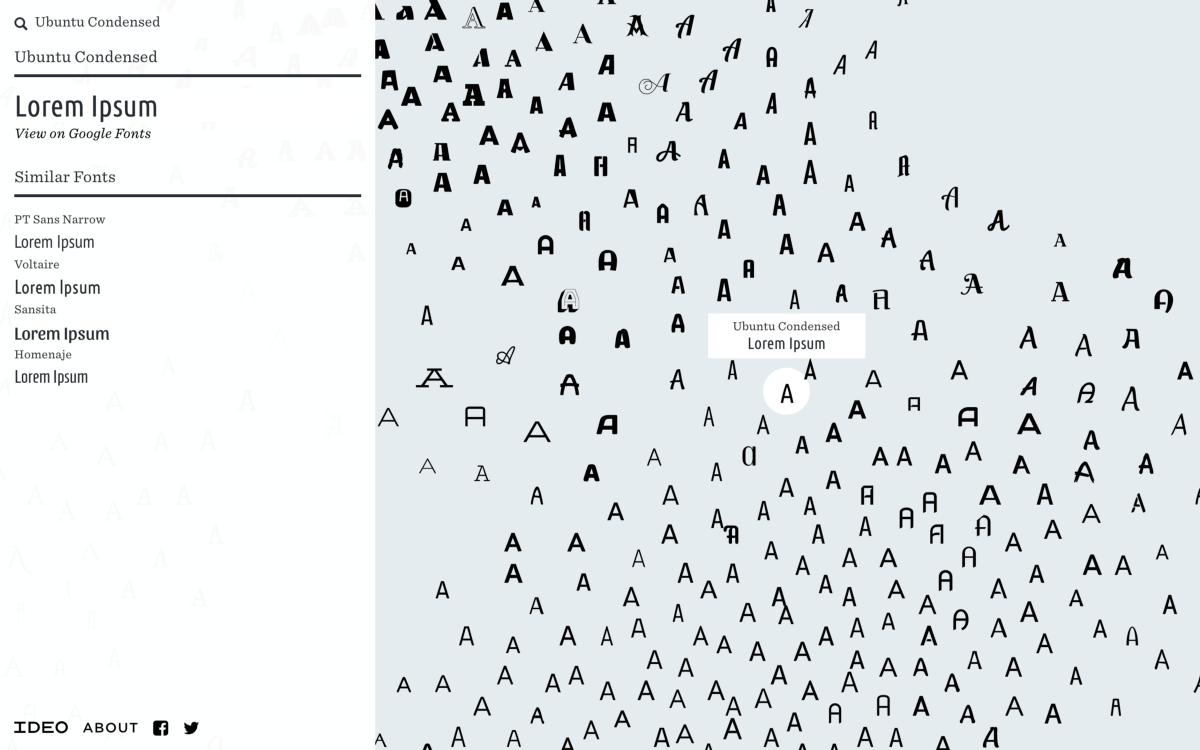
Genius map tool sorts fonts by how they look
Visually similar fonts are grouped together in this interactive map tool.
Sorting fonts by name has long been the conventional way for designers to sift through different sets of type families. This doesn't mean it's the easiest approach though. To make the process of exploring fonts more visually intuitive, software designer and IDEO project lead Kevin Ho has harnessed the power of machine learning with his Font Map.
Powered by a machine learning algorithm that sorts fonts by visual characteristics such as weight and serif, Font Map gives designers a new and interactive way to explore type.
Click on a font and you can see similar styles dotted all around it, complete with their names and an example of the type family in action. It's a slightly addictive, game-like way of choosing fonts that's sure to turn up some surprising results.
Over on his blog post, Ho explains that he created Font Map to help designers discover alternative fonts with the same aesthetic. With over 750 fonts laid out for designers to click on and explore, this map of clustered sets of type is a welcome change to scrolling through alphabetically ordered styles and goes to show machine learning and AI can help designers in valuable ways.